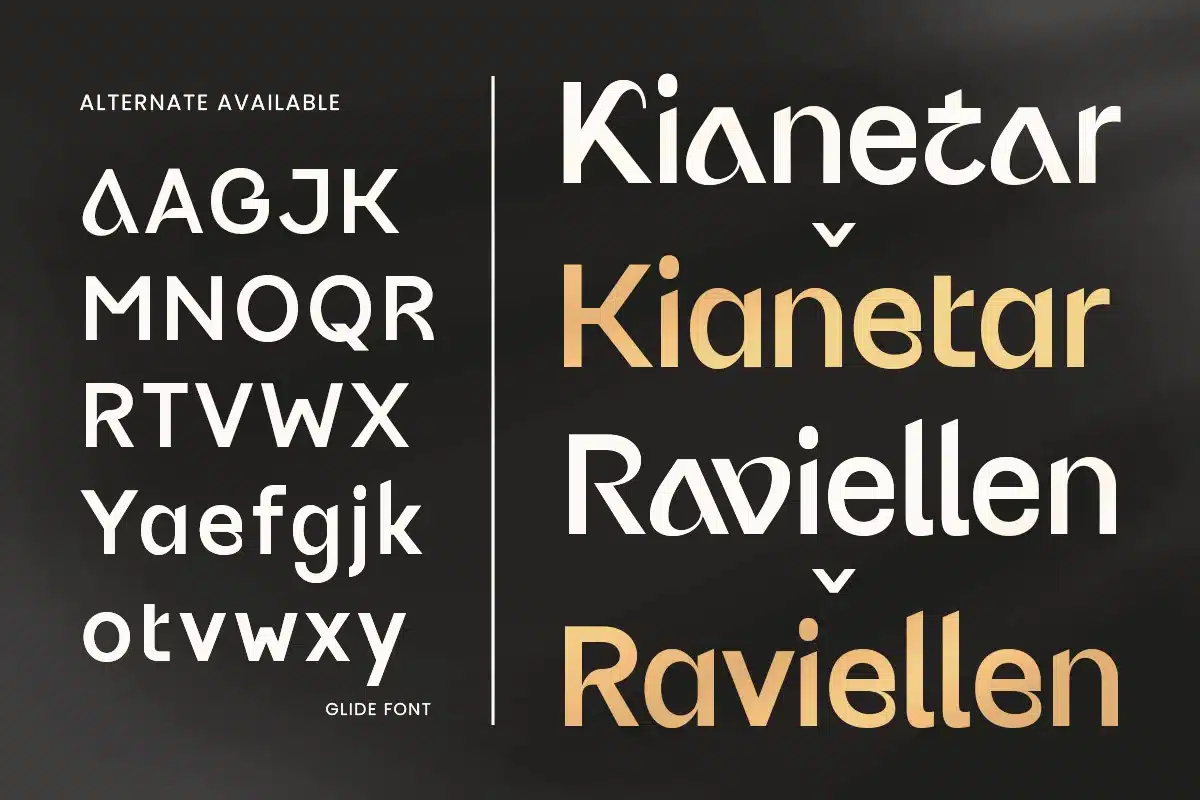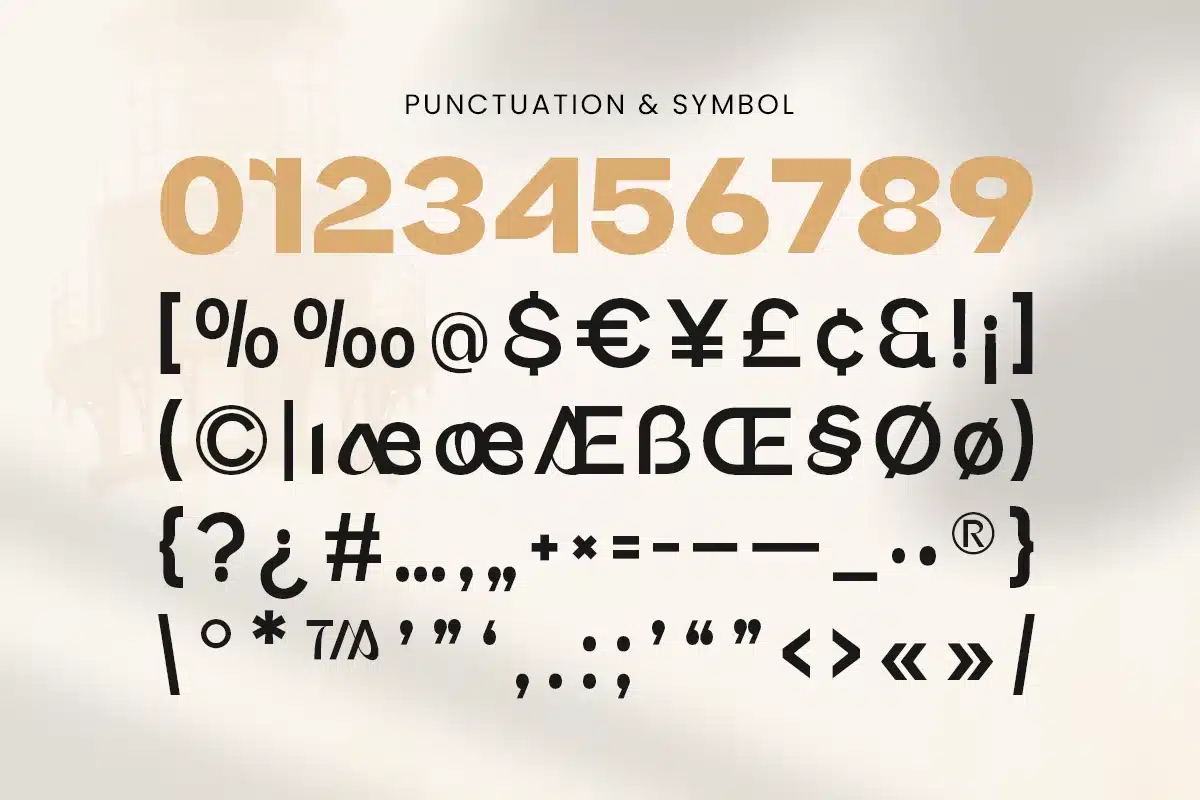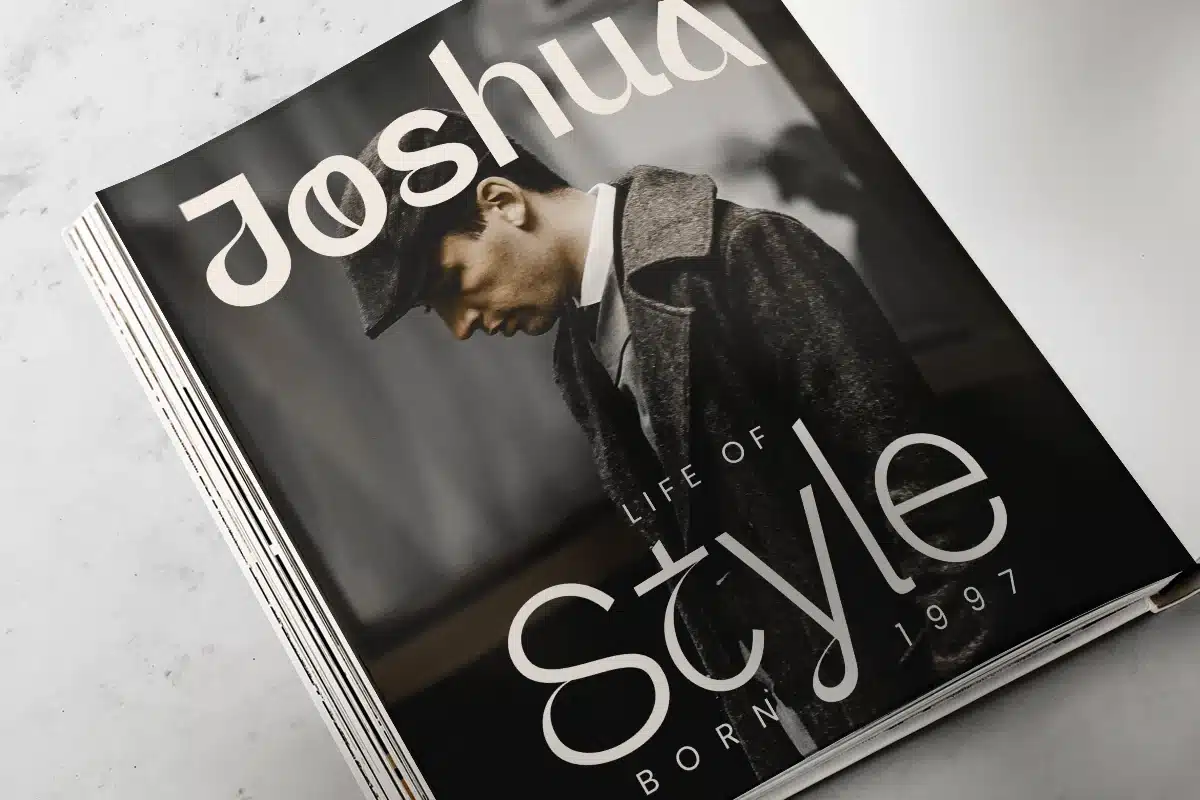
Glide – Modern Branding Logo Font Family
Glide is a modern branding logo font family designed for professionals and creatives who want clean, versatile, and contemporary typography. Perfect for logos, branding, posters, digital products, and corporate identities, Glide brings clarity, elegance, and a polished aesthetic to every project.
With balanced proportions and sleek letterforms, Glide ensures readability while maintaining a modern, stylish presence in both print and digital applications. Its versatility makes it ideal for a wide range of design needs.
Glide – Modern Branding Logo Font Family Features
- Elegant and versatile font family
- Available with Light, Regular, and Bold Weights
- Perfect for branding, logos, and digital designs
- OpenType features for extra flexibility
Multilingual support for